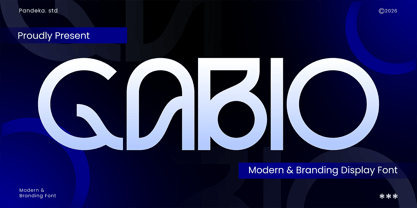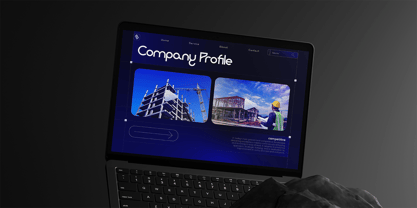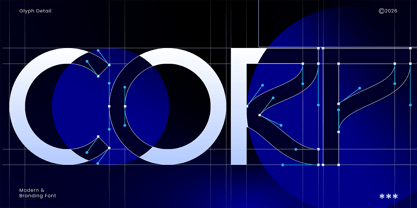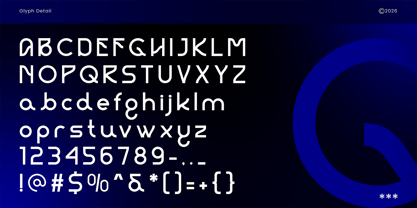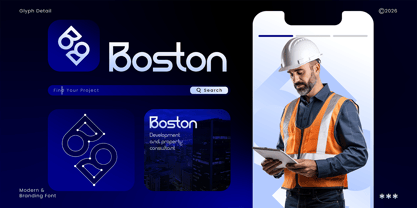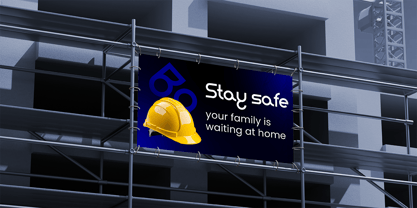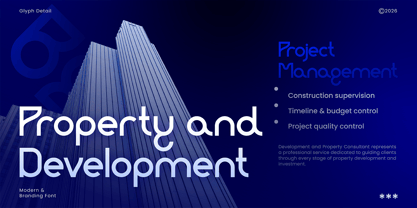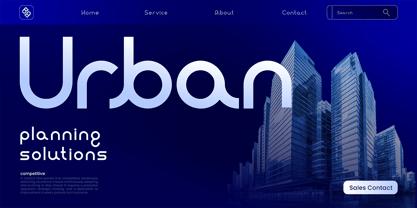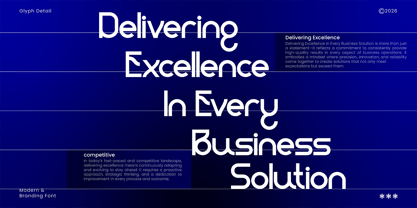
Gabio
The Gabio Font Family was designed by Sagara Nararya and published by Pandeka Studio. Gabio contains 2 styles and family package options. More about this family
Gabio is a modern branding font crafted with clean geometric forms, sharp structure, and a professional contemporary style. Designed to deliver clarity and impact, this typeface is perfect for corporate branding, technology visuals, business presentations, and modern digital interfaces that demand a strong and confident typographic voice.
This font comes with 2 styles: Regular and Oblique, providing flexibility for both structured layouts and dynamic compositions. The oblique style adds movement and modern edge, making Gabio ideal for logos, brand identity systems, websites, UI/UX design, startup visuals, presentations, posters, and professional marketing materials.
• 2 Style: Regular and Oblique
• Full Character Set: Uppercase, lowercase, numbers, symbols, and punctuation